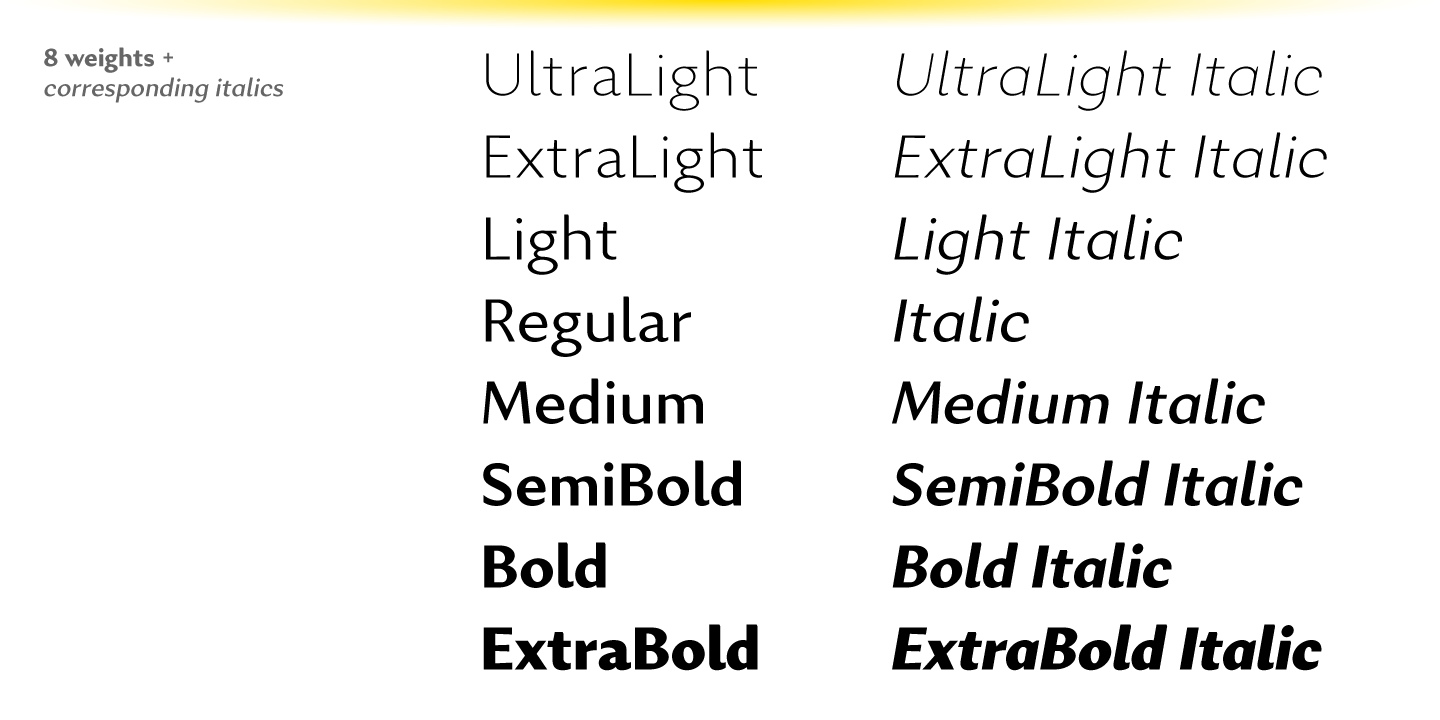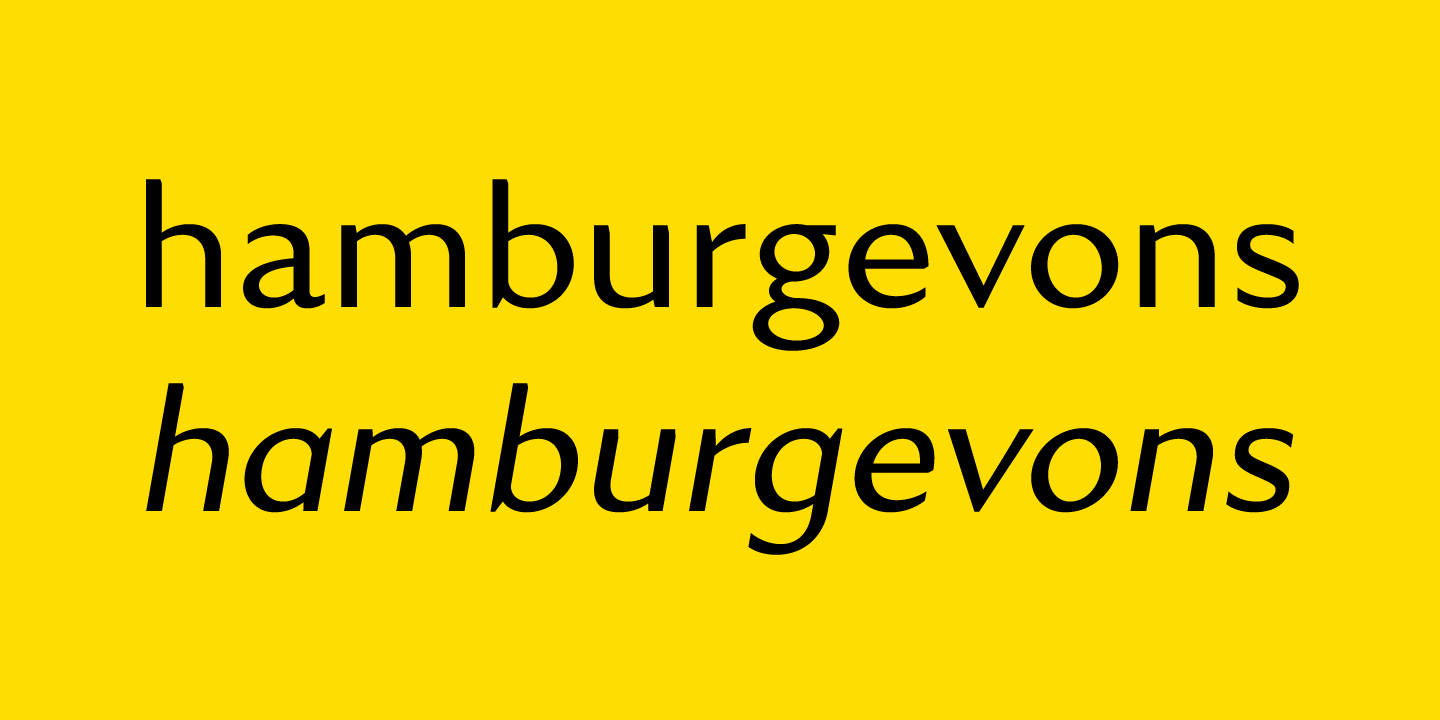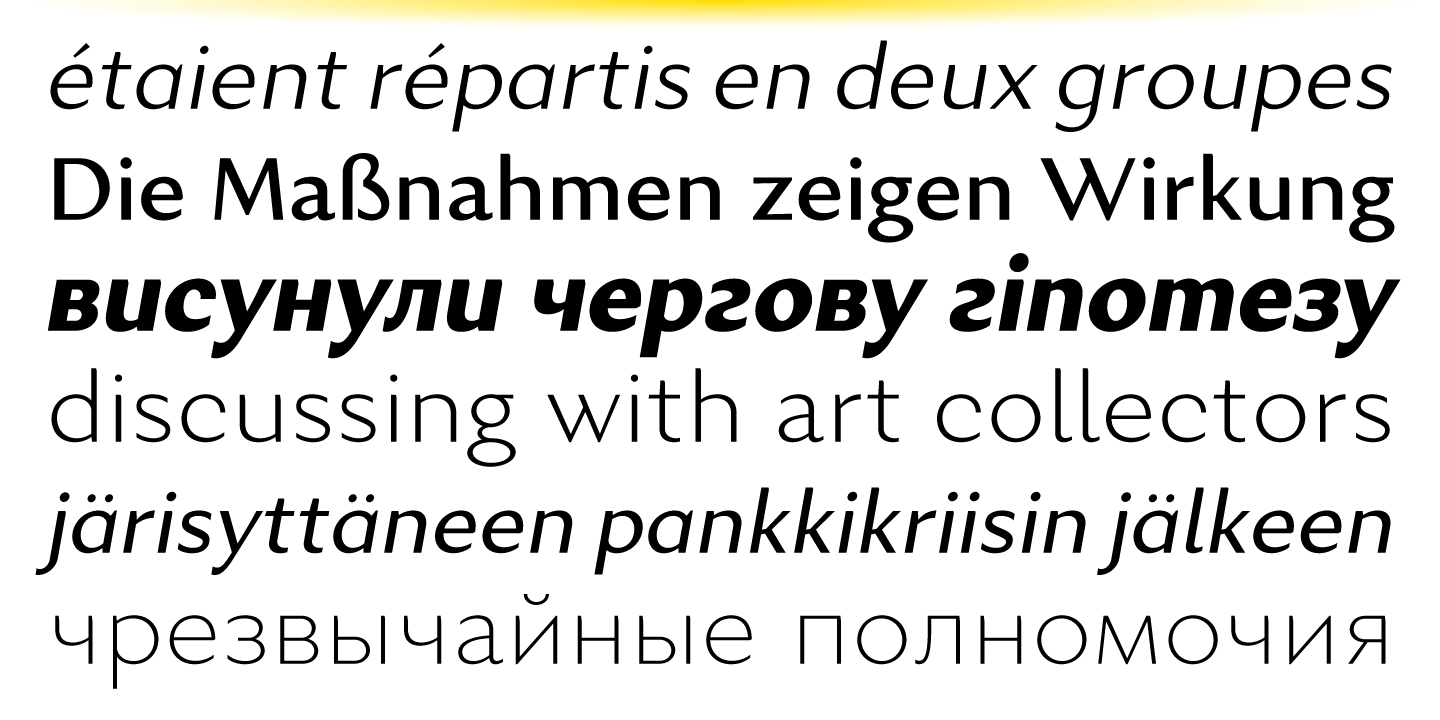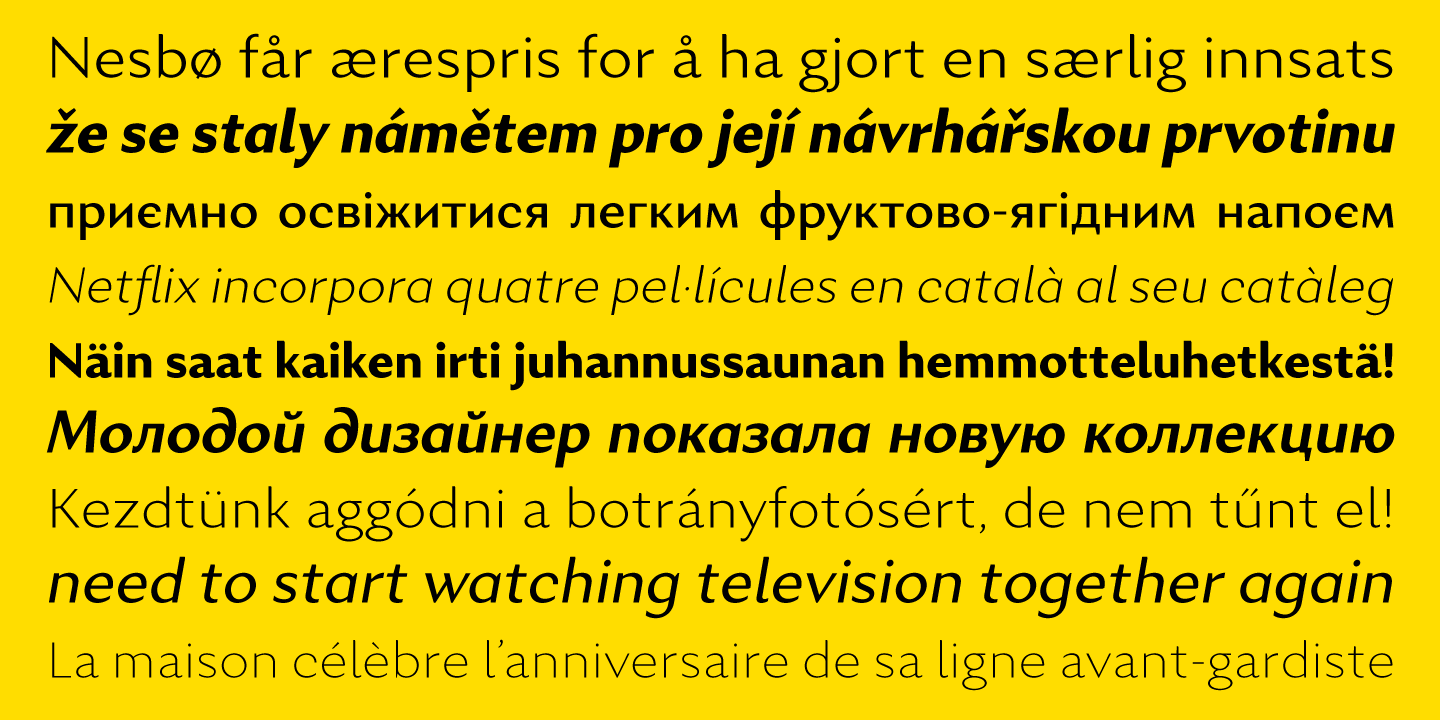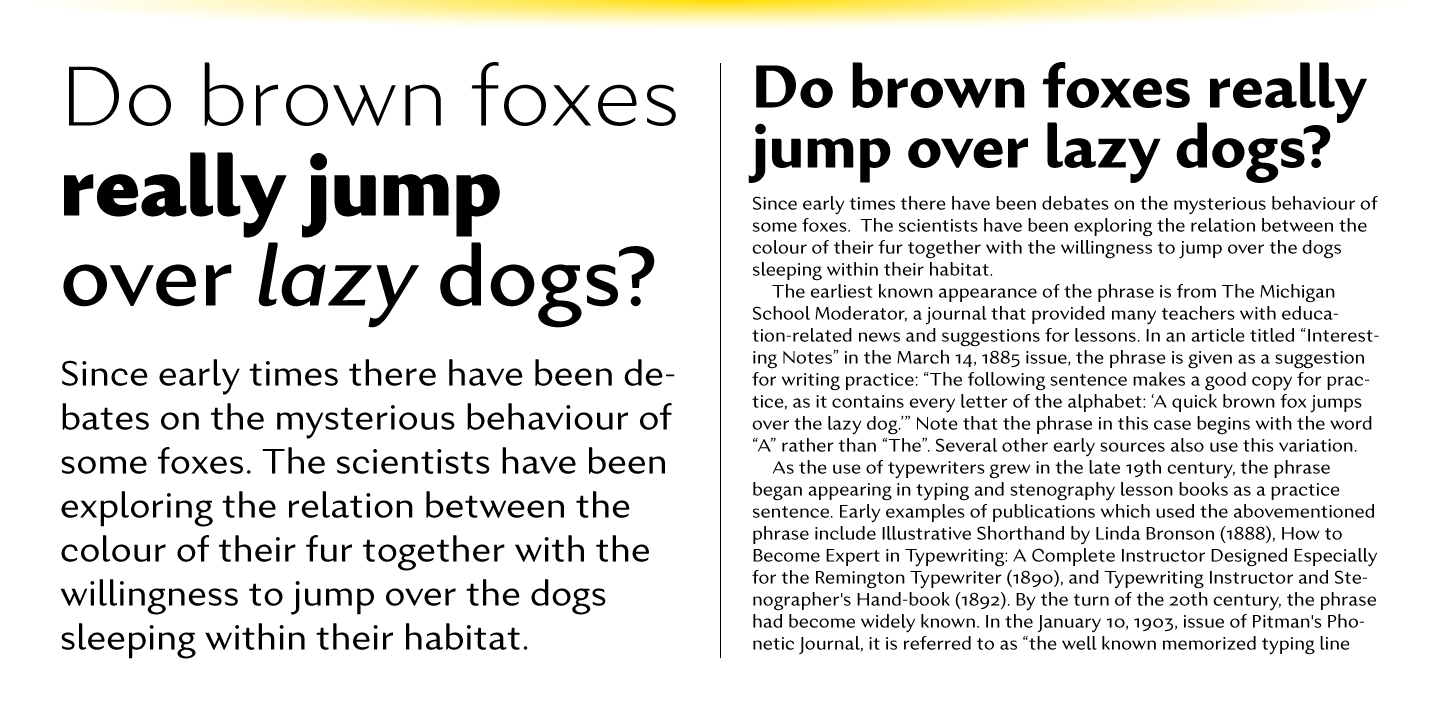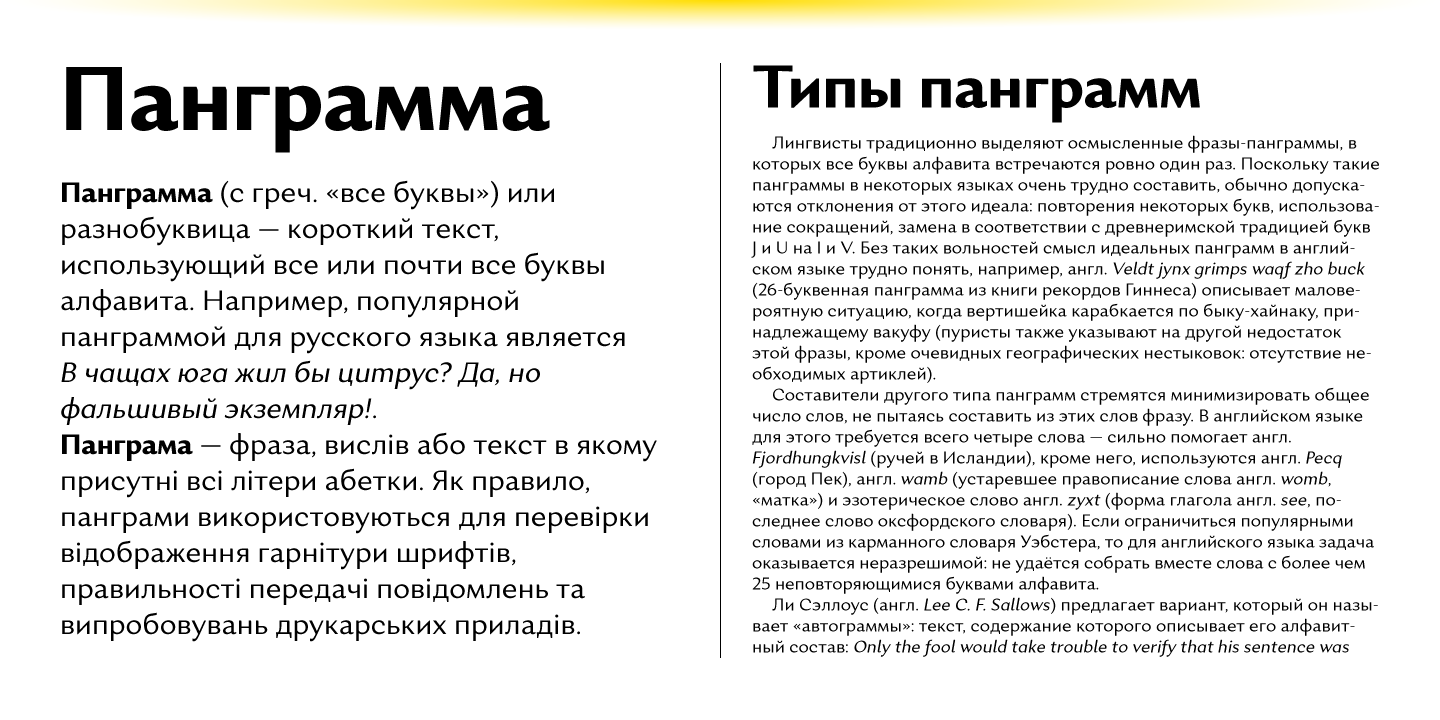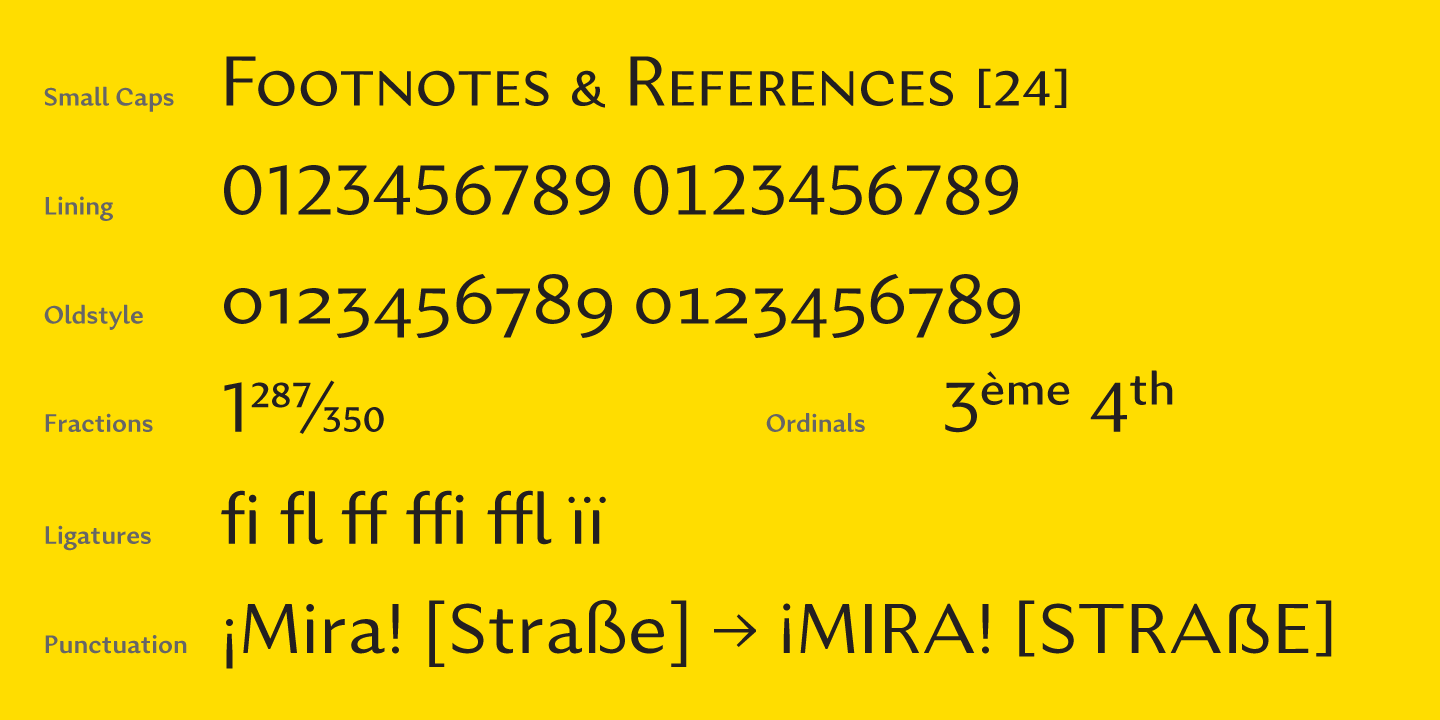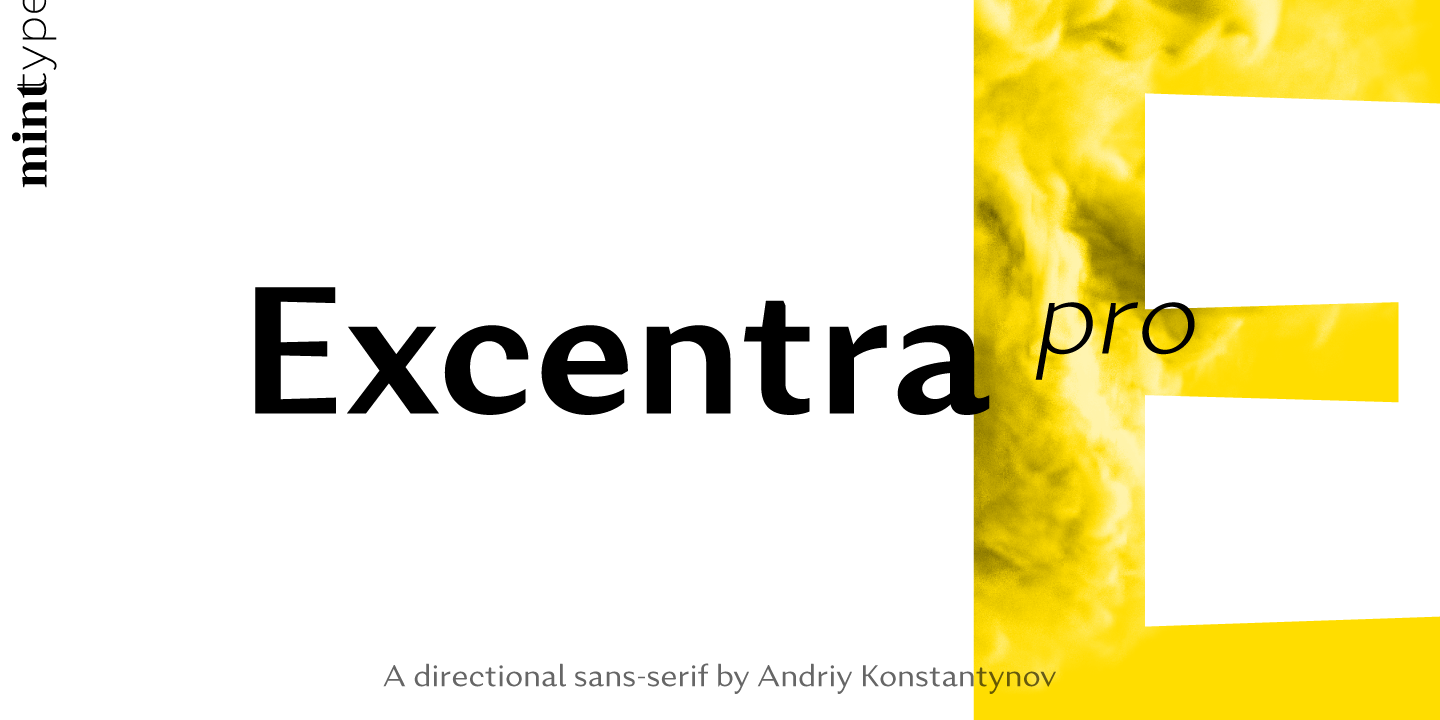
Excentra Pro
Excentra Pro, being a sans serif inspired by the typefaces of 1920s, features the humanistic stroke variation with inclined axis. The peculiar elegant drawing makes Excentra Pro suitable for use in magazines as well as in all kinds of branding applications including body-copy typesetting.
The typeface comes in 8 weights + real italics, each supporting numerous Latin-based and major Cyrillic languages. Its OpenType features include ligatures, small caps, 6 sets of digits, superiors and inferiors, fractions, ordinals, respective punctuation varieties including all-cap punctuation, as well as language-specific alternates. It also features the newly adopted German capital Eszett.
Designed by Andriy Konstantynov